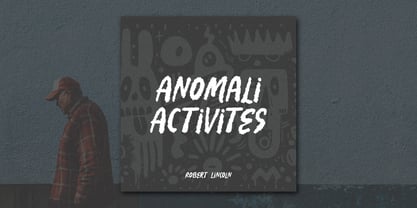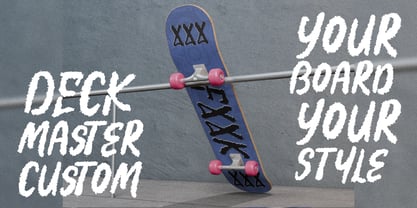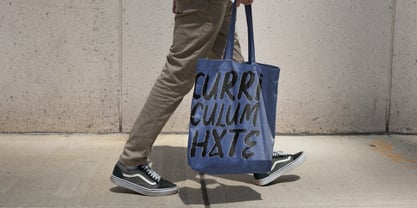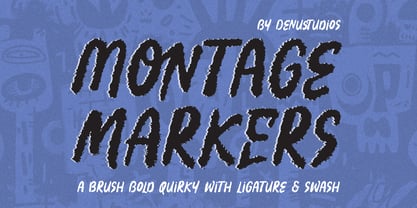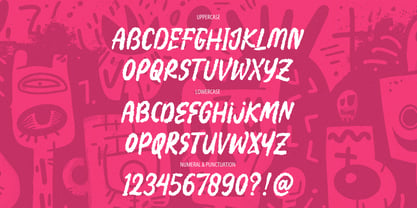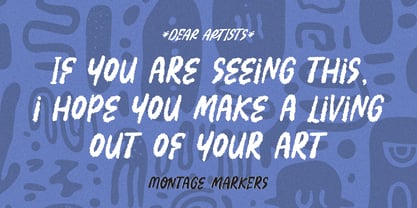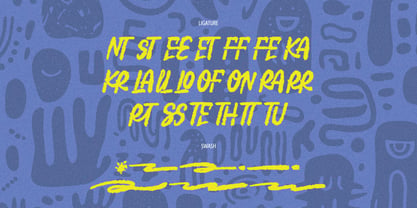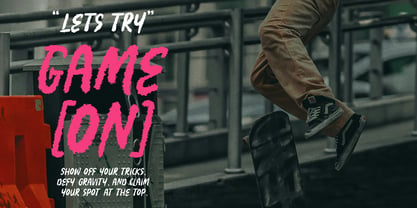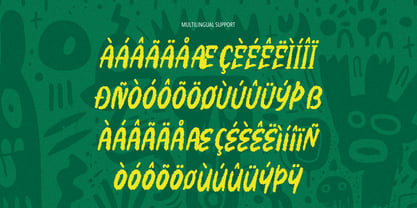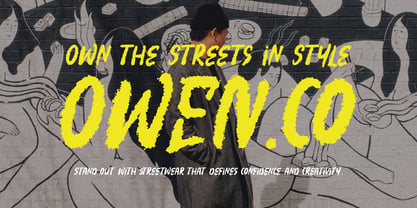
Montage Markers
by Denustudio
The Montage Markers Font Family was designed by Dede Nugraha and published by Denustudio. Montage Markers contains 2 styles and family package options. More about this family
Montage Markers | Brush Bold Quirky, from Denustudios, suitable for any projects such as: logos, branding projects, homeware designs, product packaging, mugs, quotes, posters, shopping bags, t-shirts, book covers, name card, invitation cards, greeting cards, label, photography, watermark, special events, and all your other lovely projects that need a Brush Bold Quirky taste.
• Regular and Italic
• Alternate and Ligature
• Fonts include multilingual support
Designers: Dede Nugraha
Foundry: Denustudio